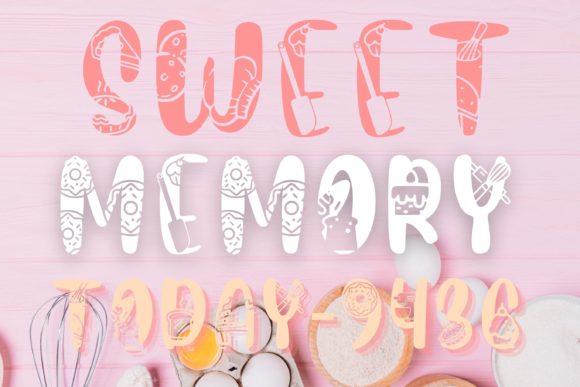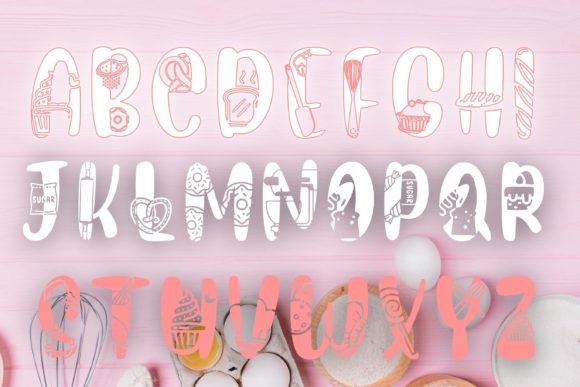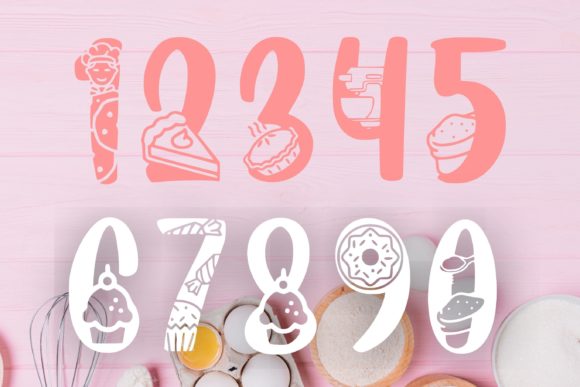
The Sweetest Addition to Your Designs: Bakery Lover Font
Have you ever been browsing through a bakery, inhaling the sweet aroma of freshly baked goods, and suddenly, an idea strikes you? Perhaps it’s a new logo concept, a brand identity, or even a greeting card design. Whatever it is, it’s that spark of creativity that makes us designers tick. And, trust us, we’ve all been there – searching for the perfect font to bring our ideas to life.
Enter Bakery Lover Font, a cool, unique, and incredibly useful decorative font that’s perfect for adding that extra oomph to your designs. Whether you’re working on a blog post, logo, or invitation, this font is sure to make your creations stand out. As a designer, you’ll appreciate the versatility and value it brings to your projects, making it a must-have in your design arsenal.
- Unique Characteristics: This font features a unique, hand-drawn design with a mix of modern and traditional elements, giving it a distinctive and eye-catching appearance.
Bakery Lover Font Review
I recently had the chance to work with the Bakery Lover Font, and I must say, it’s a delightful addition to any design project. ✨ The font’s playful, handwritten style is reminiscent of freshly baked goods, making it perfect for bakeries, cafes, and food-related businesses.
Here are some of the things that stood out to me:
- ✨ Unique and eye-catching design that’s sure to grab attention
- ✨ Great for creating a warm and inviting atmosphere
- ✨ Compatible with a wide range of platforms and devices
- ⚠️ Limited character set, which may make it difficult to use for longer blocks of text
- ⚠️ Not ideal for formal or professional settings
- ⚠️ May require some tweaking to get the spacing just right
Overall, I think the Bakery Lover Font is a great choice for designers looking to add a touch of whimsy to their projects. While it may not be the best fit for every situation, it’s certainly a fun and creative option to consider.
For best results, use the font in conjunction with colorful and whimsical design elements to create a cohesive look.
The Bakery Lover Font is perfect for:
Designing bakery menus and promotional materials.
Creating social media graphics and ads for bakeries and food businesses.
Adding a touch of whimsy and personality to event invitations and announcements.
What is the recommended font size and line height for the Bakery Lover Font?
For optimal readability, we recommend using the Bakery Lover Font with a font size between 12-24 points and a line height of 1.2-1.5 times the font size. This will help ensure that the text is clear and easy to read, especially in digital formats.